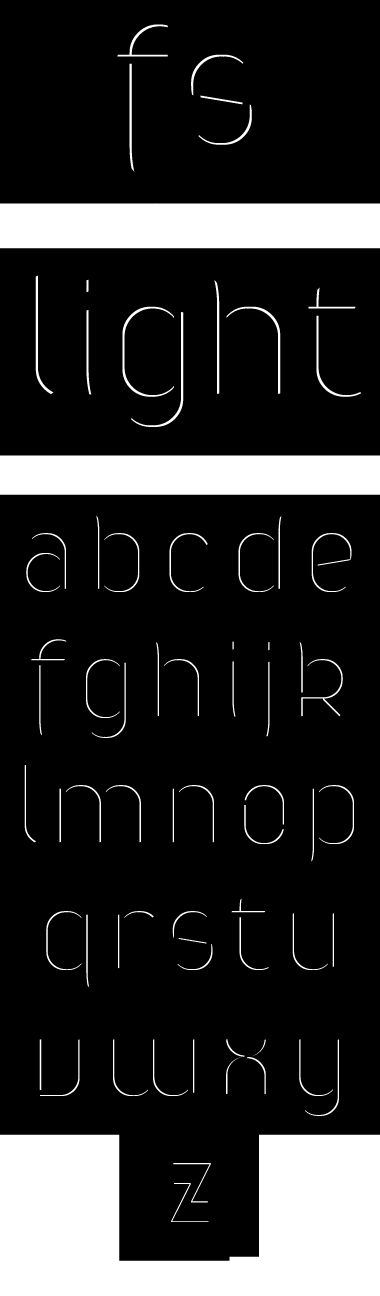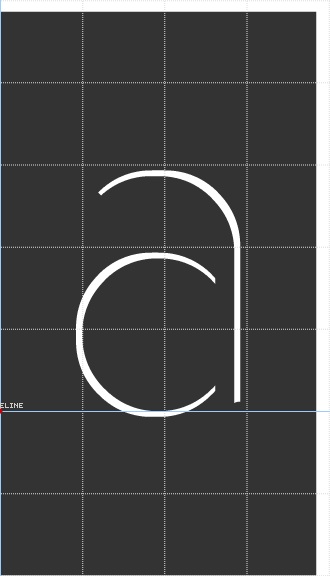
Inverse hairline font with sublime curves hints technical brilliance. You know something we do not, that's plain. 10/10
stunning! Your technique is awesome! 10 is not enough.
I clone it just to see how you realise it... I'm realy impress, brillant technique and the result is awesome
Wow. Words cannot describe. Keep it up. 10/10 +fave
Skillful filterwork? The result is great! z seems to be slightly different. 10/10
Quite sublime. 10/10
@four // Counting filters, I think the grid height is about 4! Correct me if I'm wrong, but this is AMAZING. 4 bricks for such a thin and light design? Amazing.
If you haven't cloned this...do it now.
There is some nifty brickwork going on here.
This isn't... but how can... I had no idea that...
The beginning of a New Era.
How...
can...
you...
do...
it...???
Thou found the secret passage from the Expert Mode to the Alchemist Mode and patiently elaborated the Philosopher's Stone Formula giving to Fontstruct its eternal Vector life only heard of in a so old legend that even the wiser men on Earth had forgotten it!
I can hear Pierre de Fermat soul applausing you from the Heaven and directing an everseen Angels Fanfare from the Skies! HAIL WILLIAUM FULL OF GRACE we poor fontstructors salute you! HALLELLUJAH!
When you manage the FS bricks in other formats can be rise some special points of view, like this one (bricks scaping from the grid). It's only an idea, but...
Magic...
>mind blown
Reflecting upon fs light more reveals that you have even gotten the stroke contrast right with a stem width of as little as 1/10th of a brick. You can visualise in a way that not many others can. Congratulations.
Another ruinous 'toner sucker'… Ask for permission at work !-)